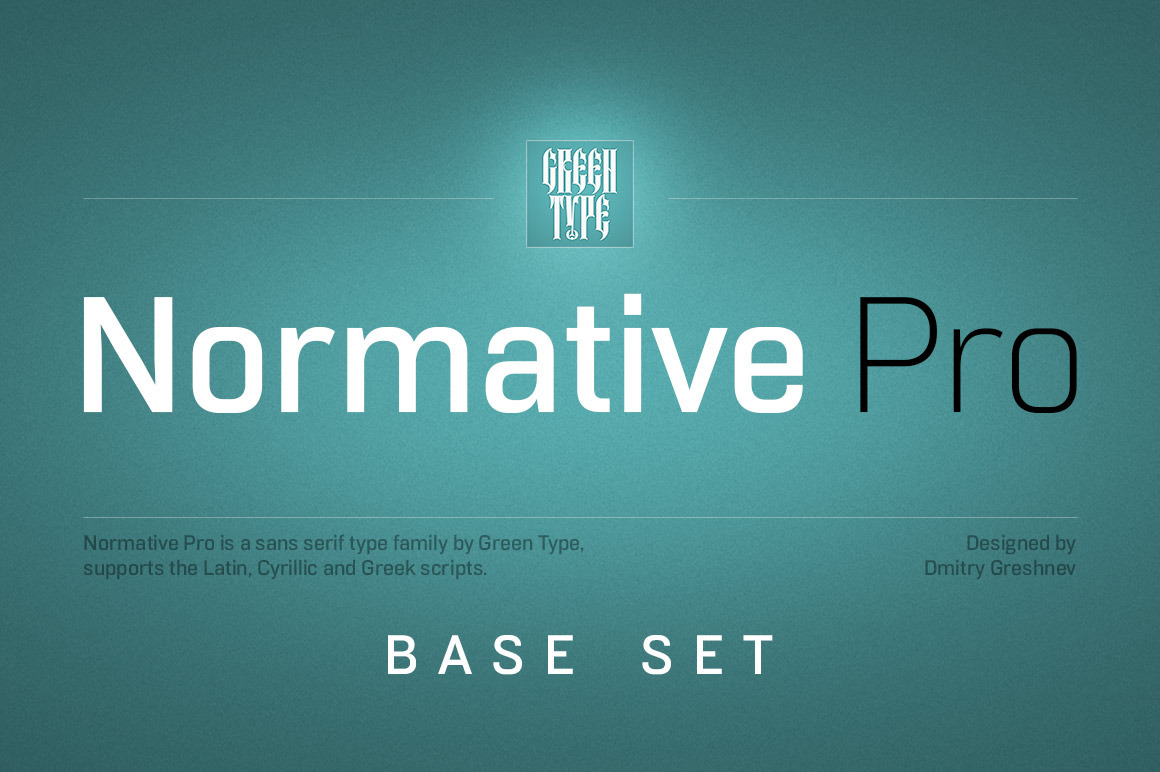
Normative Pro – 4 fonts
Normative Pro is a sans-serif font family includes a 12 styles (6 weight and italics), support Latin, Cyrillic, Greek, Eastern European, Baltic and Turkish scripts. The family uses a large number of useful Open Type features: small caps, contextual alternatives, stylistic alternates, fractions, proportional and tabular figures and more.
Normative Pro is font with wide sphere of application, legible from very small size to very large ones. Can be used both in technical documentation, office work, business communication, as well as in advertising, visual communication, magazines and posters, in branding and packaging.